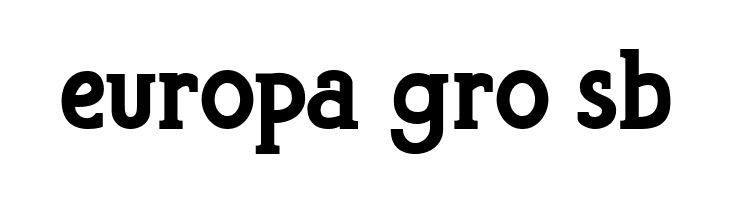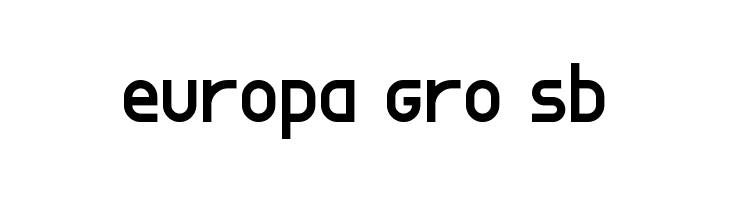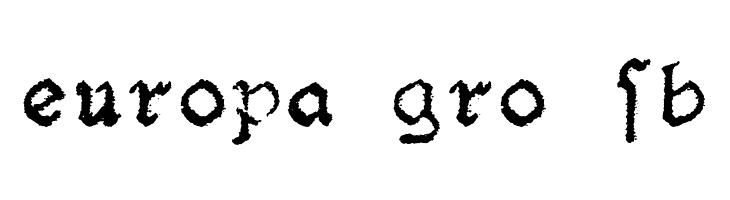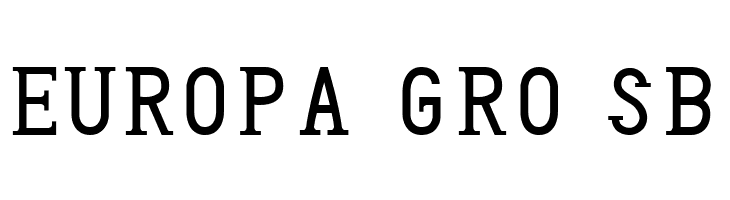
( INKsTYPIA - Andi Winarno - inkstypia-std.blogspot.com )
A bold and striking typeface with thick, uniform strokes and a robust appearance.
( INKsTYPIA - Andi Winarno - inkstypia-std.blogspot.com )
A bold and robust font with thick strokes and a strong presence.
( Latinotype - Latinotype LTDA - www.latinotype.com )
A robust slab serif font with balanced proportions and strong serifs.
( Parker Creative - Alan Parker - fontbundles.net/parker-creative )
A bold, robust font with thick strokes and a slightly condensed style.
( Vinicius W. de Carvalho Venâncio )
A bold, geometric font with a modern and clear design.
( Volker Busse - F25 Digital Typeface Design - Volker Busse - www.grafikkontor-mitte.de )
A blackletter font with a typewriter texture, combining historical elegance with a vintage feel.
( Zac Neulieb - www.zacneulieb.com )
A bold slab serif font with strong, block-like serifs and a robust presence.
( Zetafonts - www.zetafonts.com )
A bold, robust font with thick strokes, perfect for impactful headlines.
( Zetafonts - www.zetafonts.com )
A bold and robust font with strong, thick strokes for a confident and authoritative look.
( Zetafonts - www.zetafonts.com )
A bold, italic font with a dynamic and robust style.